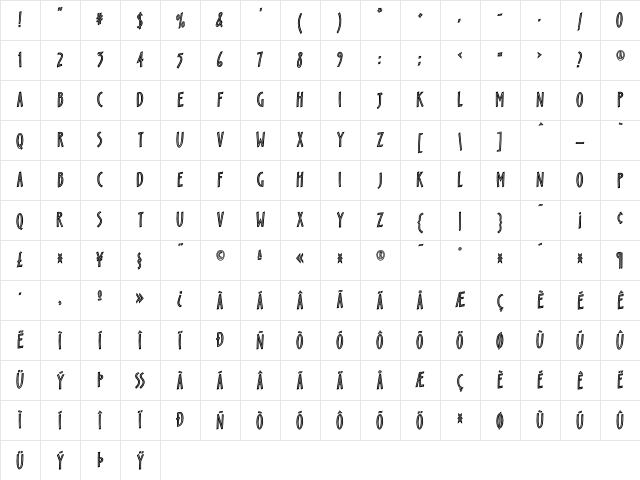
Scamp BoldInline
Style: BoldInline
Design Context for Scamp
Scamp is built around its visual character rather than neutral utility - its distinctive forms are designed to make an impression at display sizes. Its bold stroke weight gives it real presence on the page.
Font Pairing: Pair with a clean neutral sans-serif for body copy to let Scamp's character lead without overwhelming the composition.
Pro Tip: Use Scamp exclusively at display sizes - it was designed to be seen, not read at length. Let a neutral companion handle body copy.